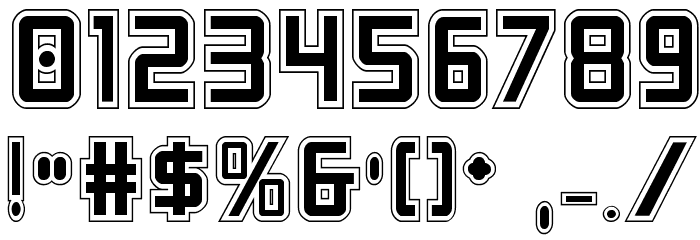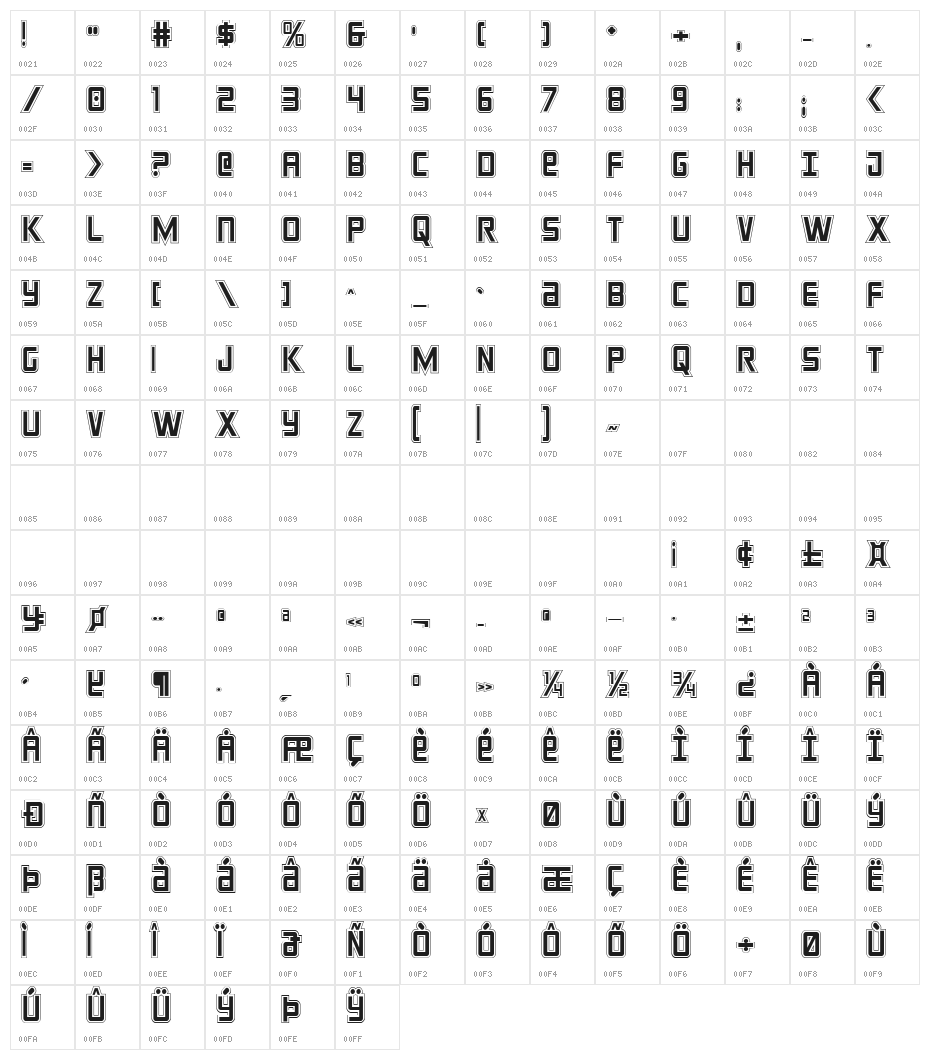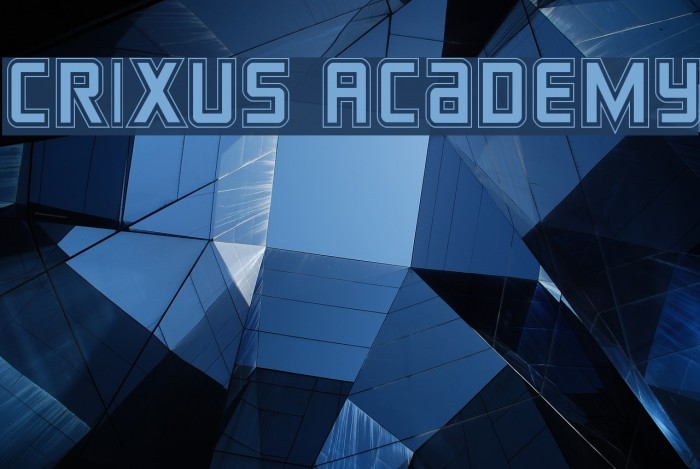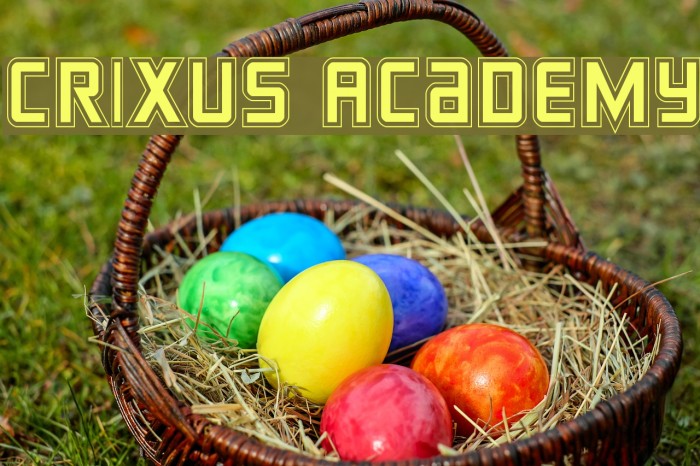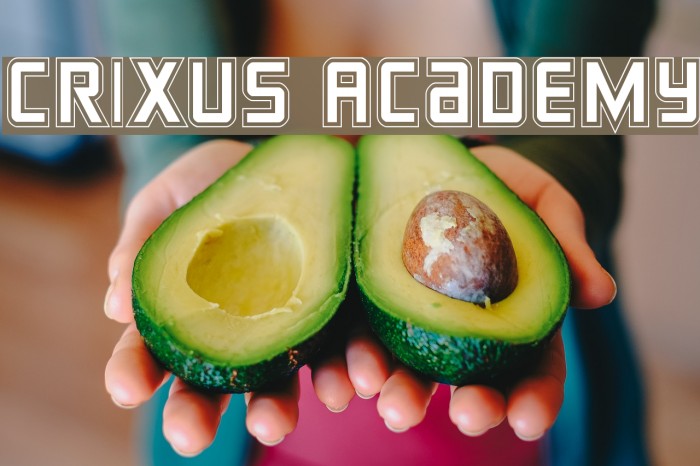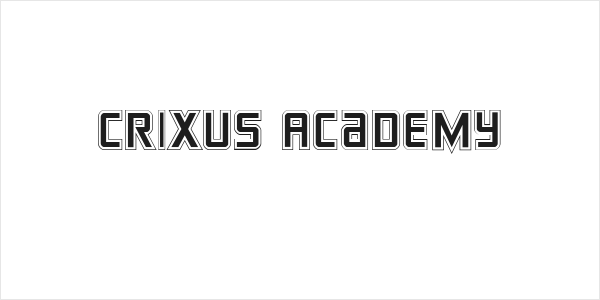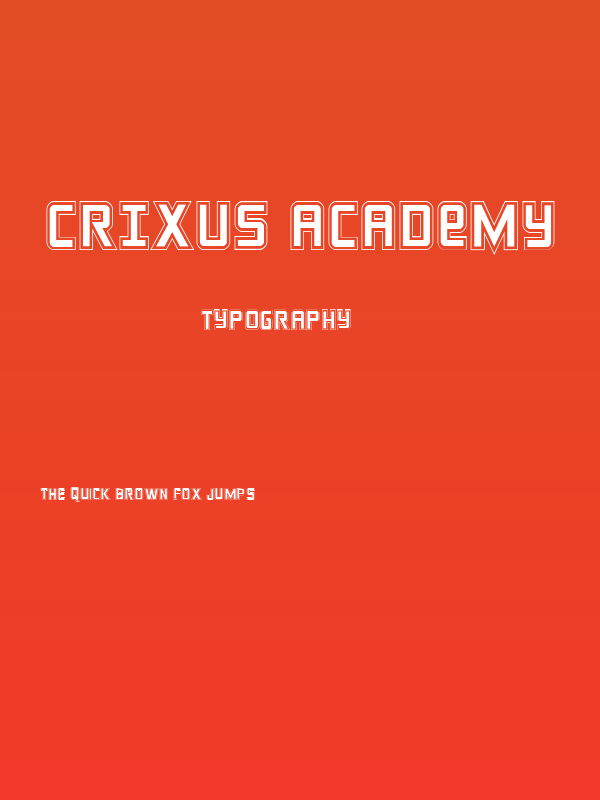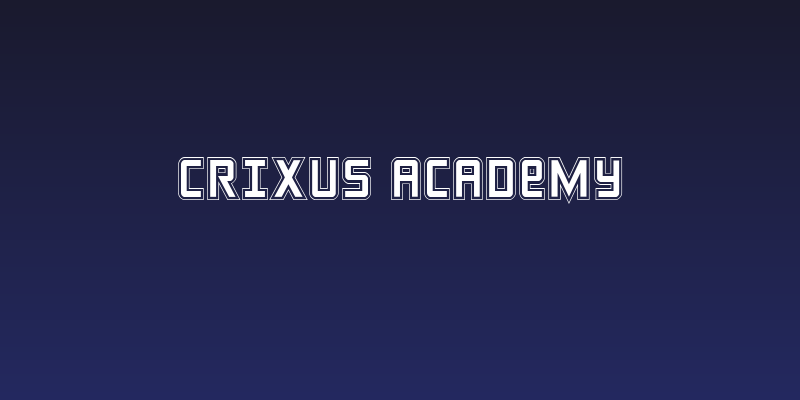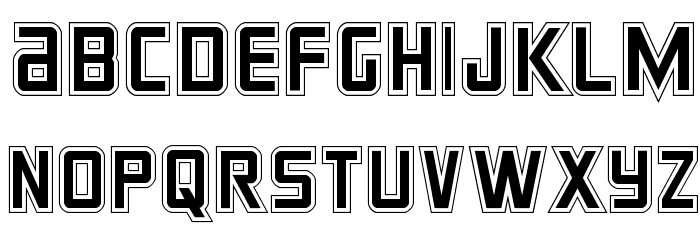
Crixus Academy Font
Crixus Academy Description
This font features a bold, geometric design with a distinct outline that gives it a three-dimensional appearance. The characters are structured with sharp angles and clean lines, creating a futuristic and dynamic look. The uppercase and lowercase letters maintain a consistent style, while the numerals and special characters complement the overall aesthetic. This font's unique style makes it stand out, suitable for projects that require a strong visual impact.
| Proposed Projects | Ideal for sports branding, posters, video game titles, and futuristic-themed designs. |